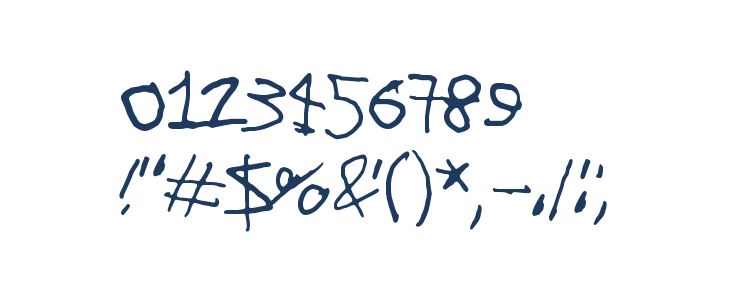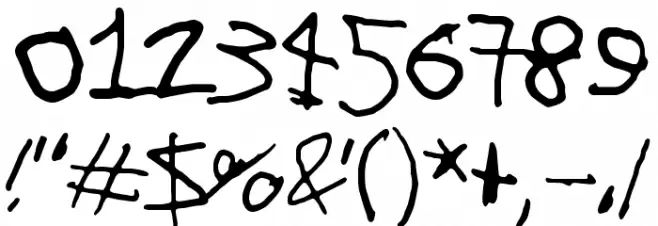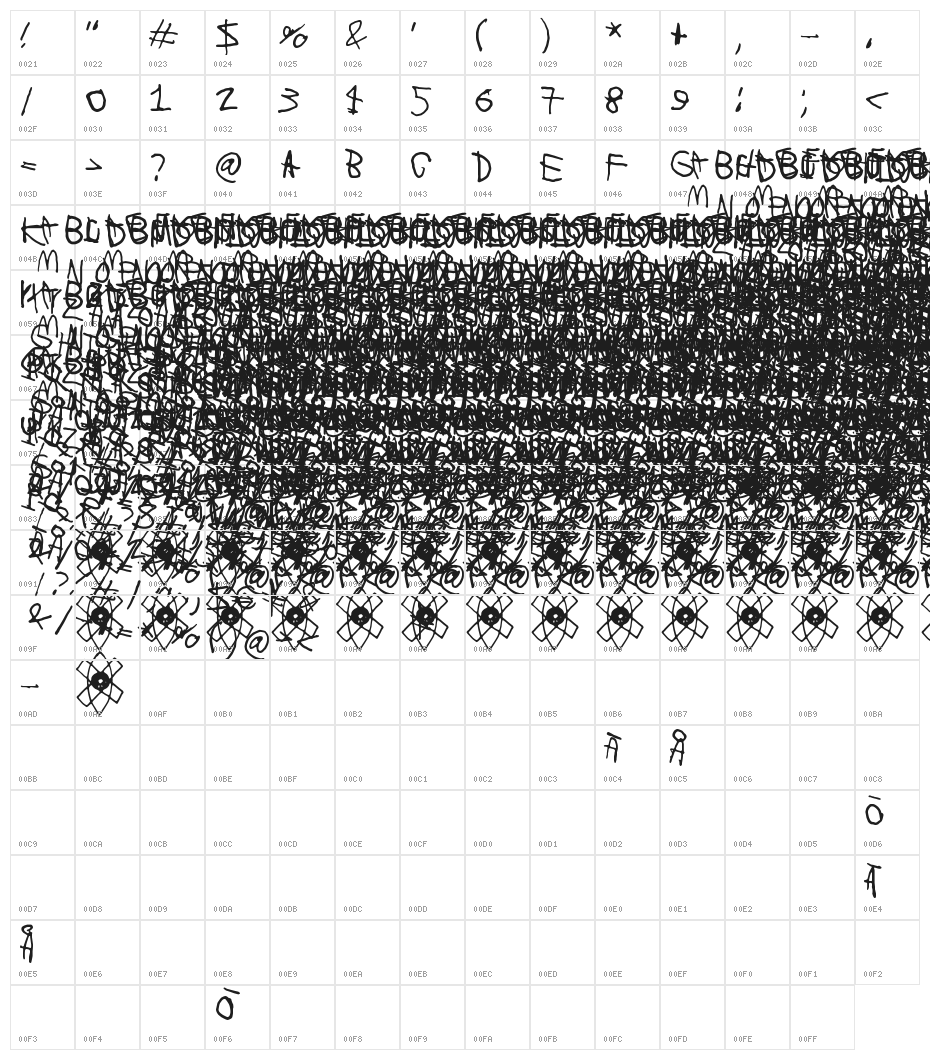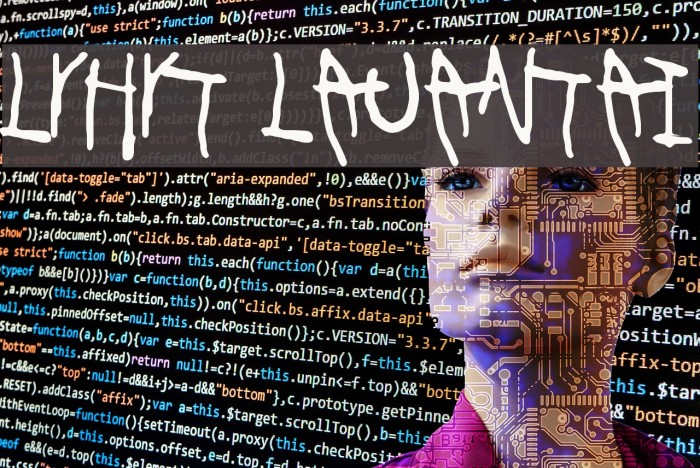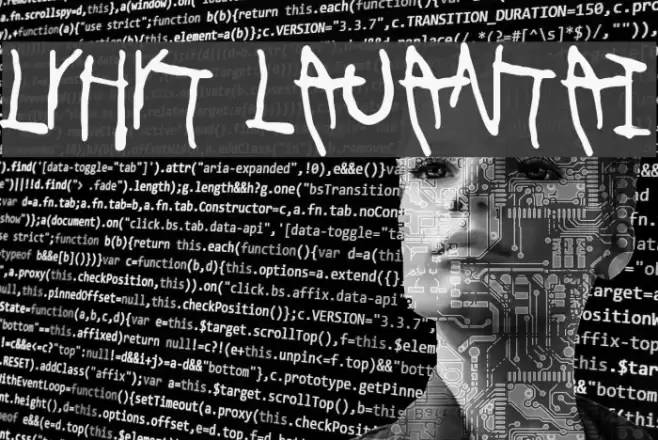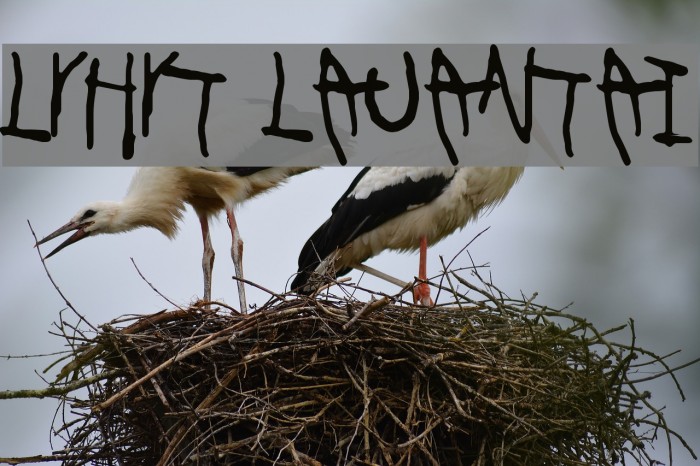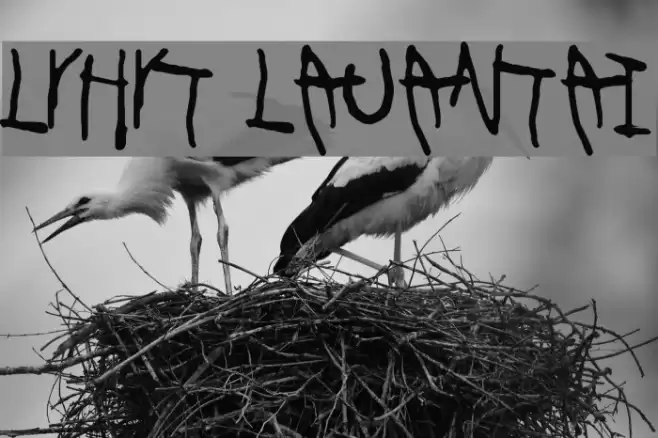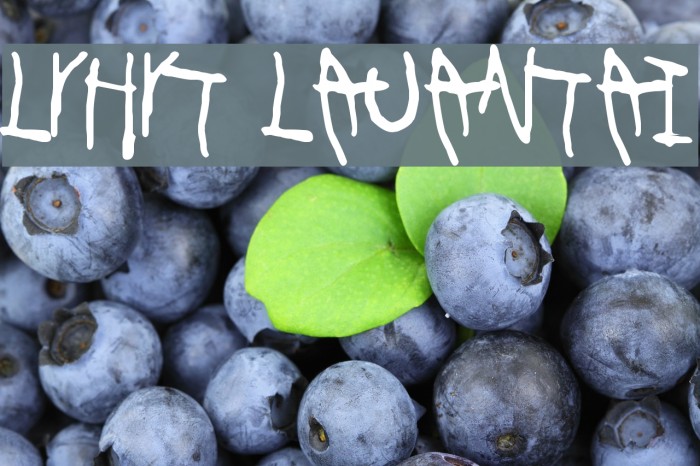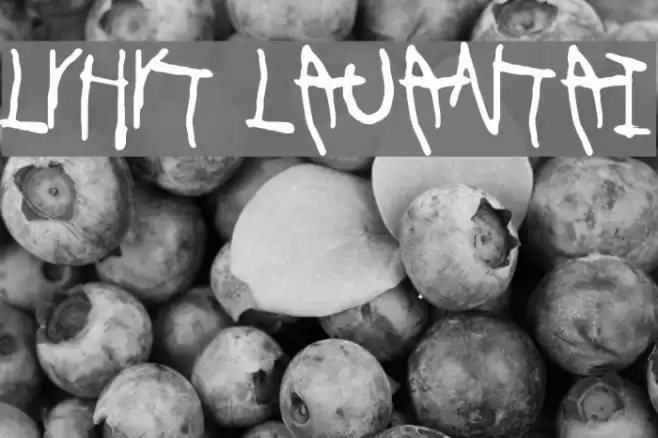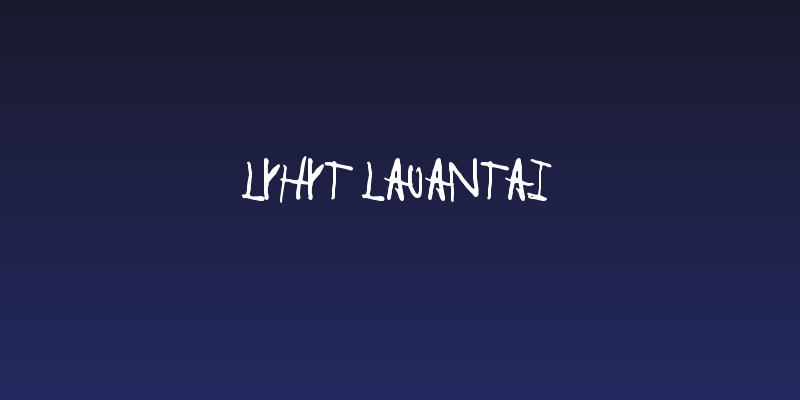
Lyhyt Lauantai Font
Lyhyt Lauantai Description
This font features a playful and casual handwritten style, characterized by its uneven strokes and slightly irregular letterforms. The characters have a spontaneous and organic feel, with varying line thickness that adds to its informal charm. The uppercase and lowercase letters are distinct yet maintain a cohesive look, while the numbers and special characters follow the same whimsical design. This font exudes a sense of creativity and personal touch, making it ideal for projects that require a friendly and approachable aesthetic.
| Proposed Projects | Ideal for greeting cards, children's books, personal blogs, and creative branding projects. |